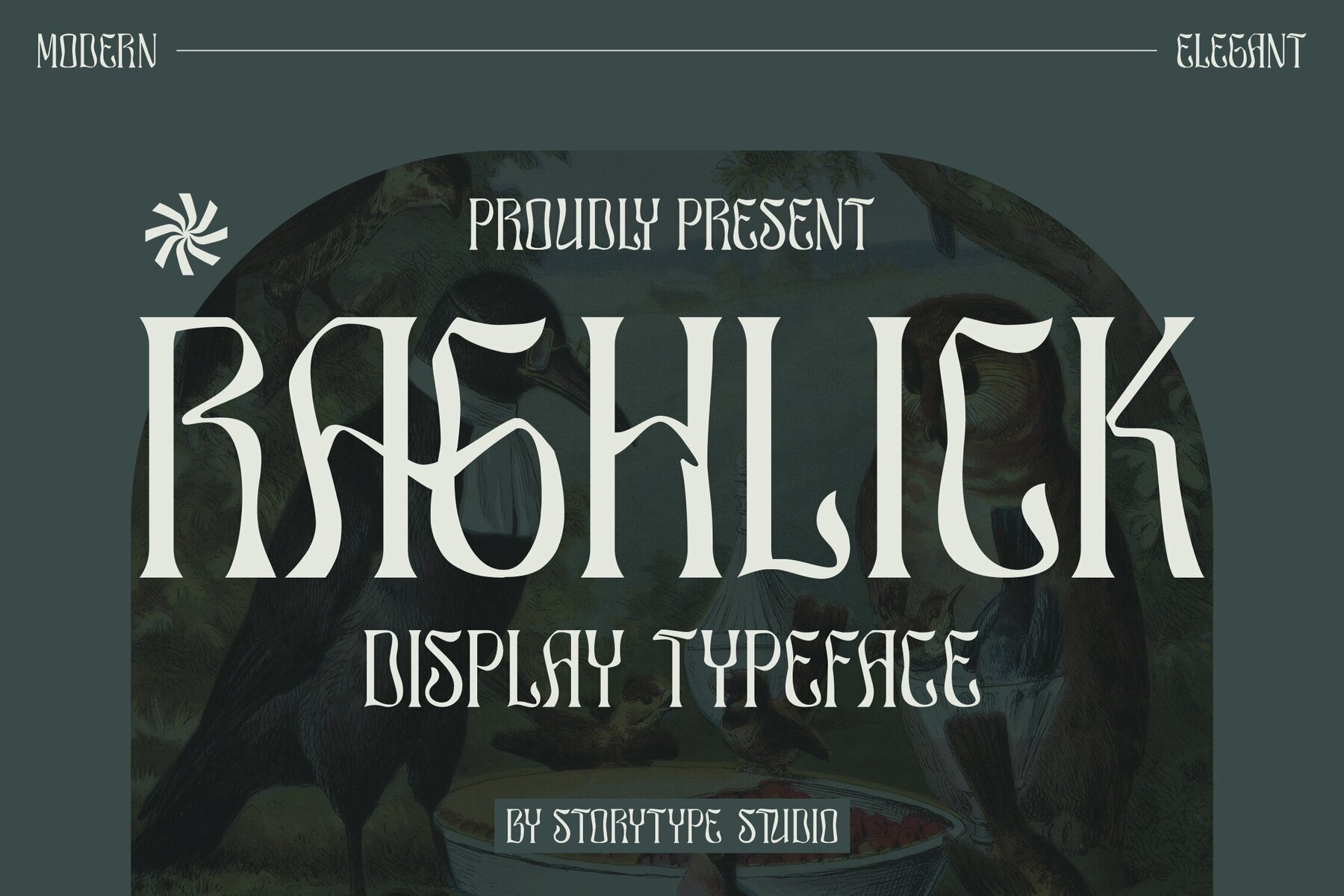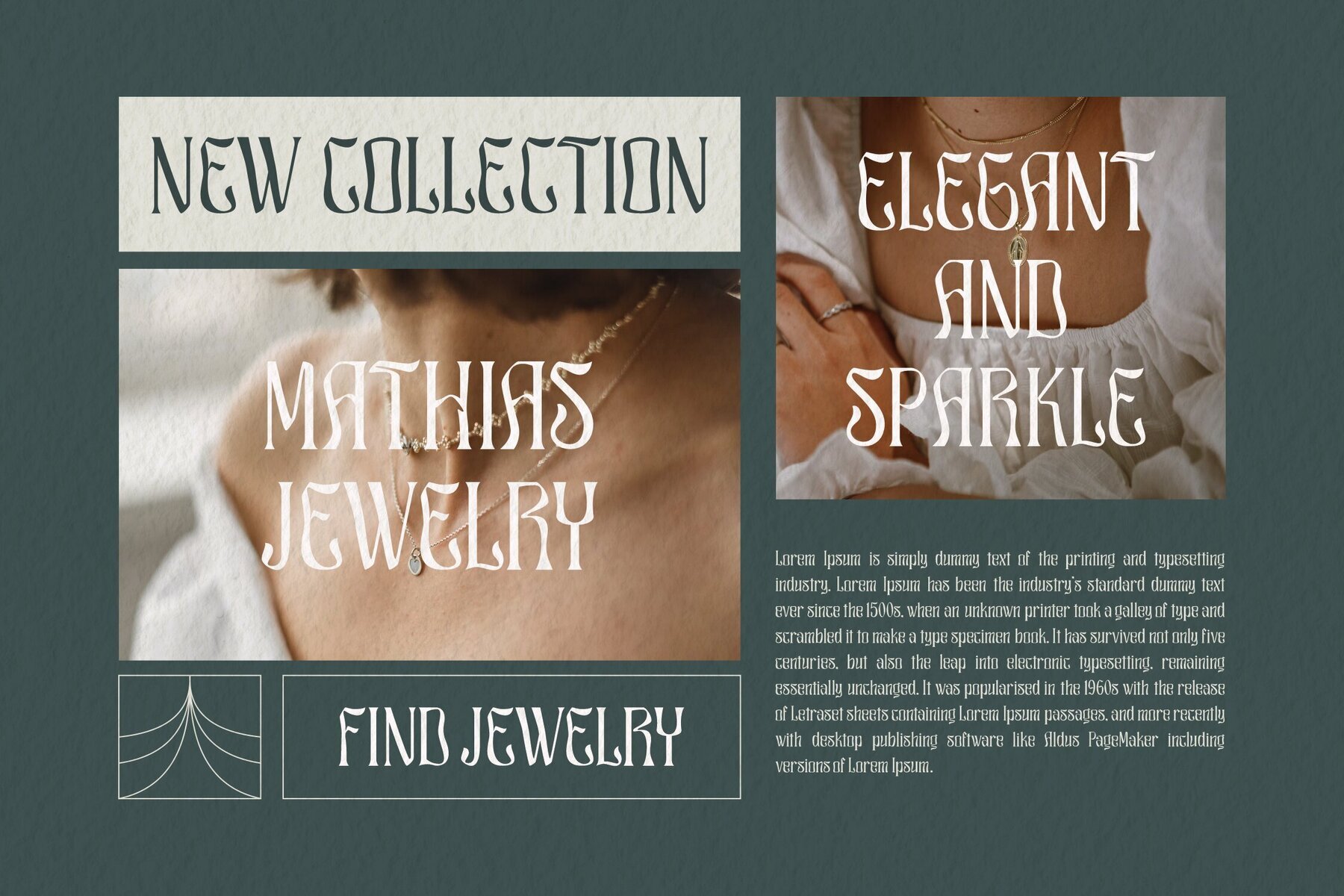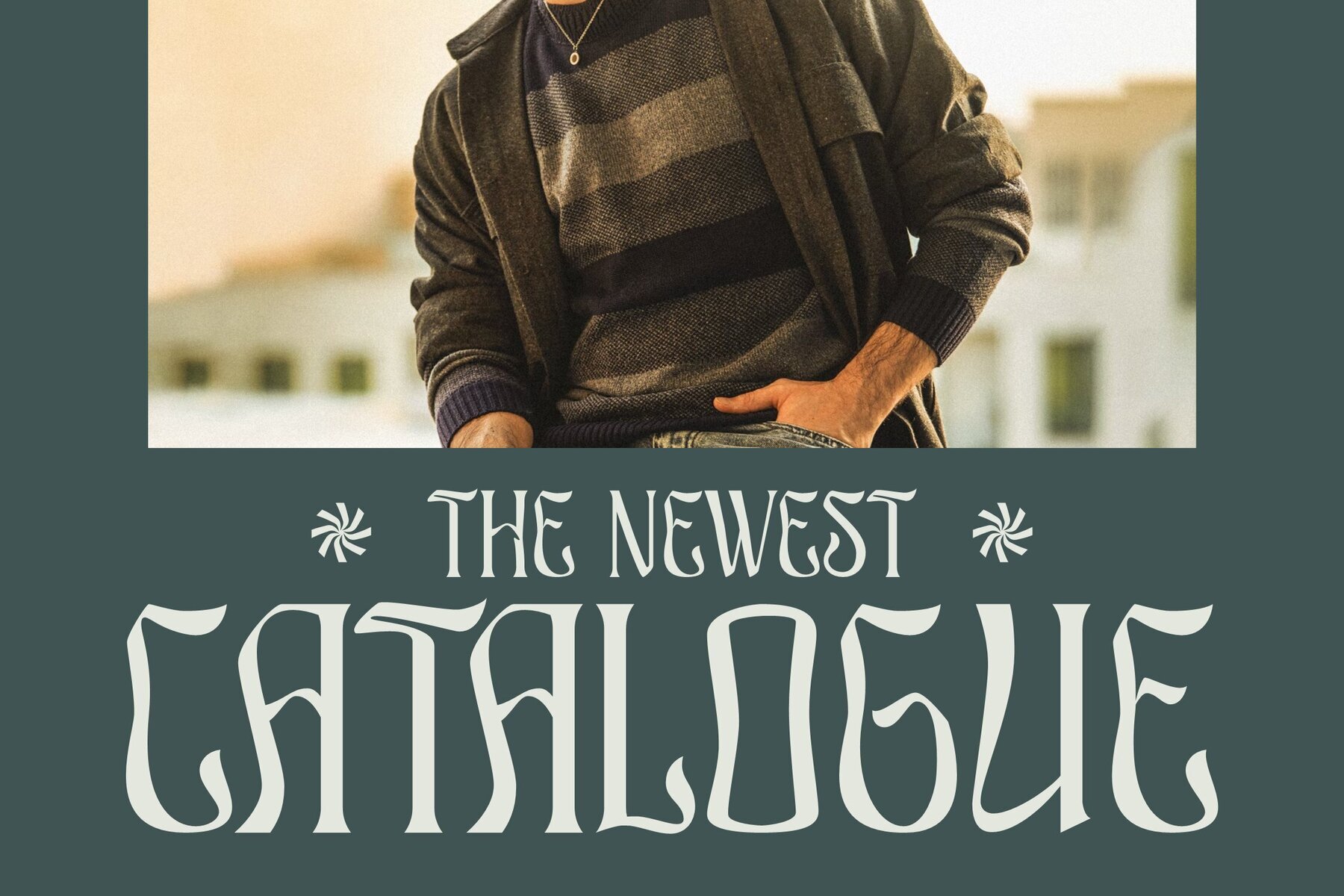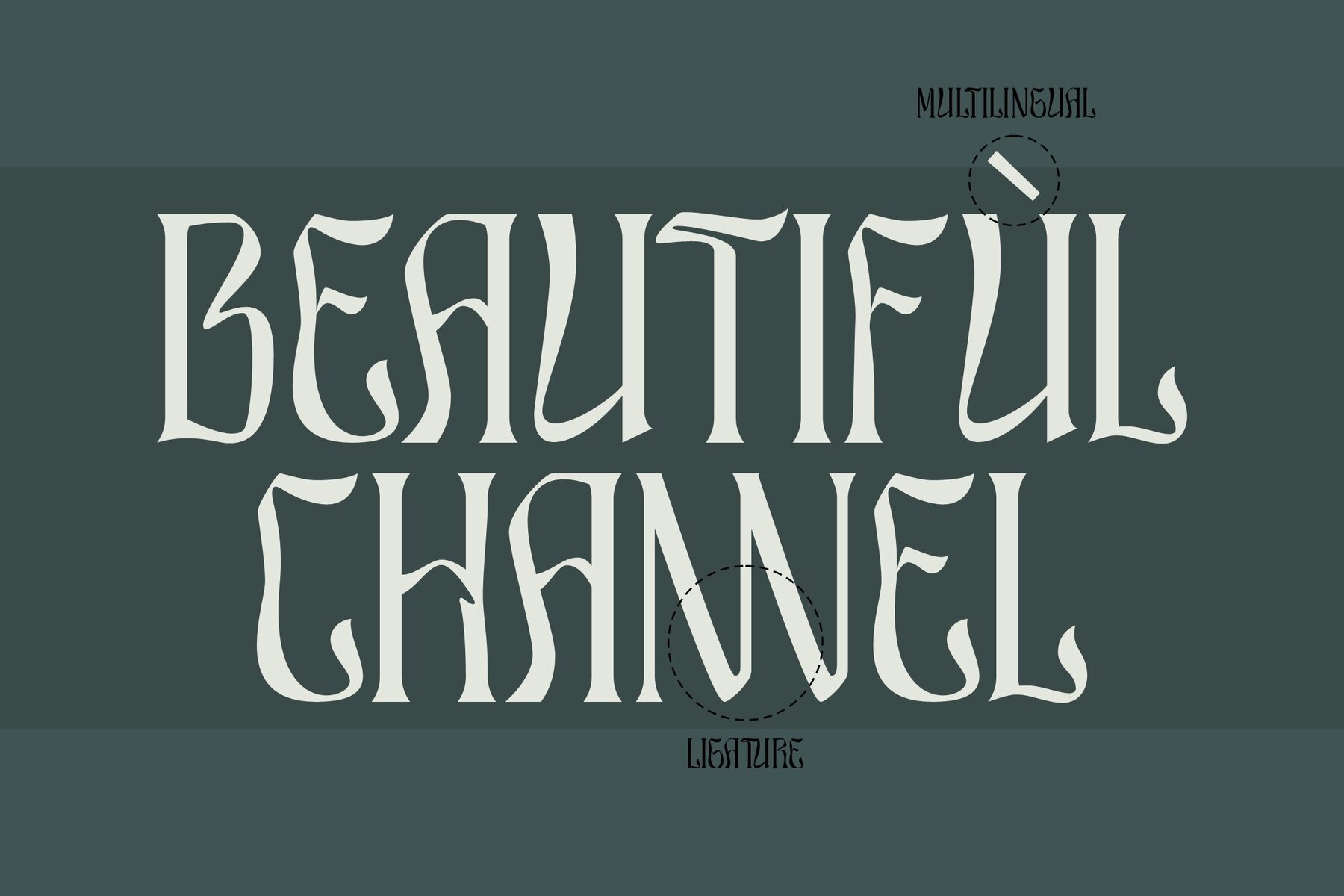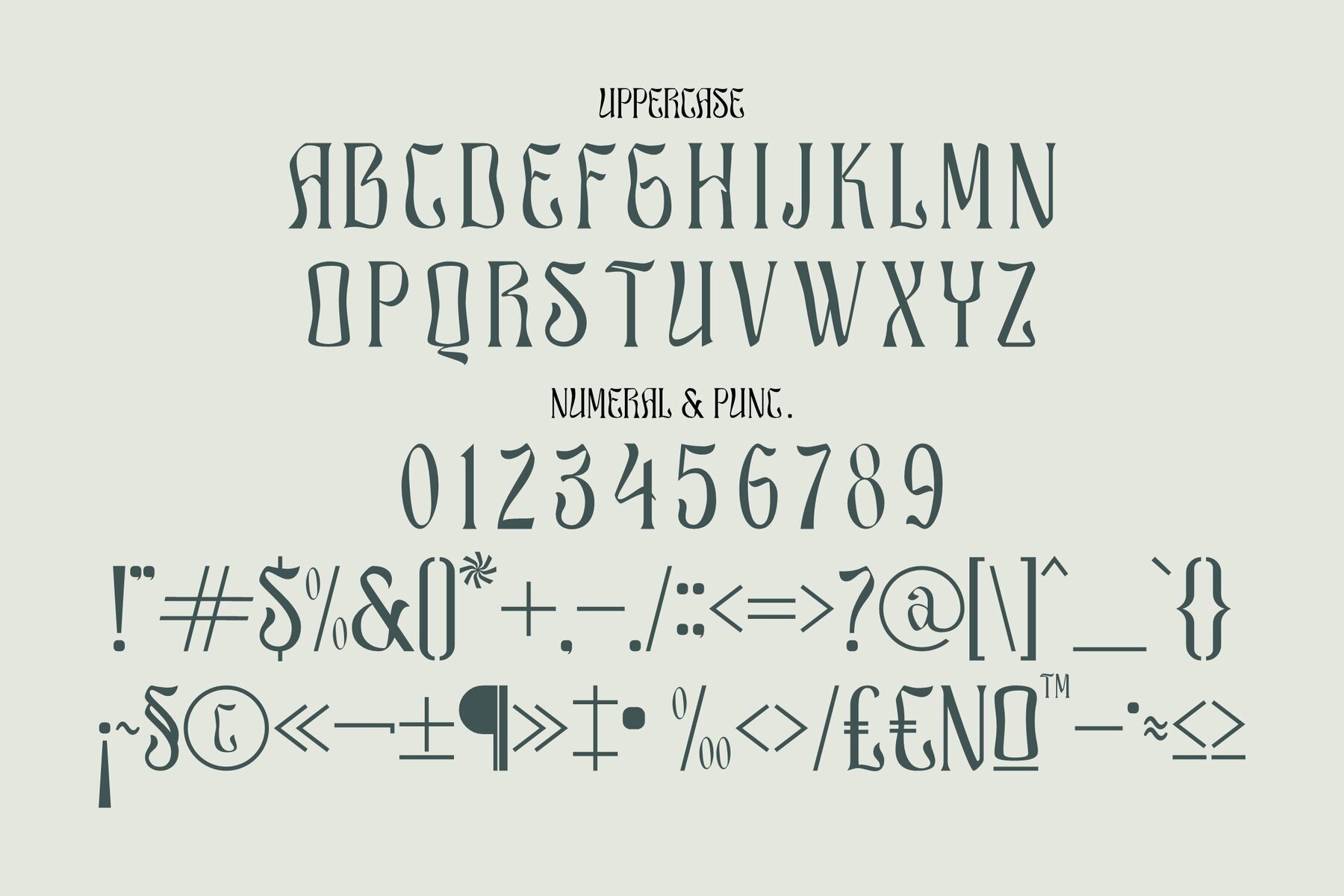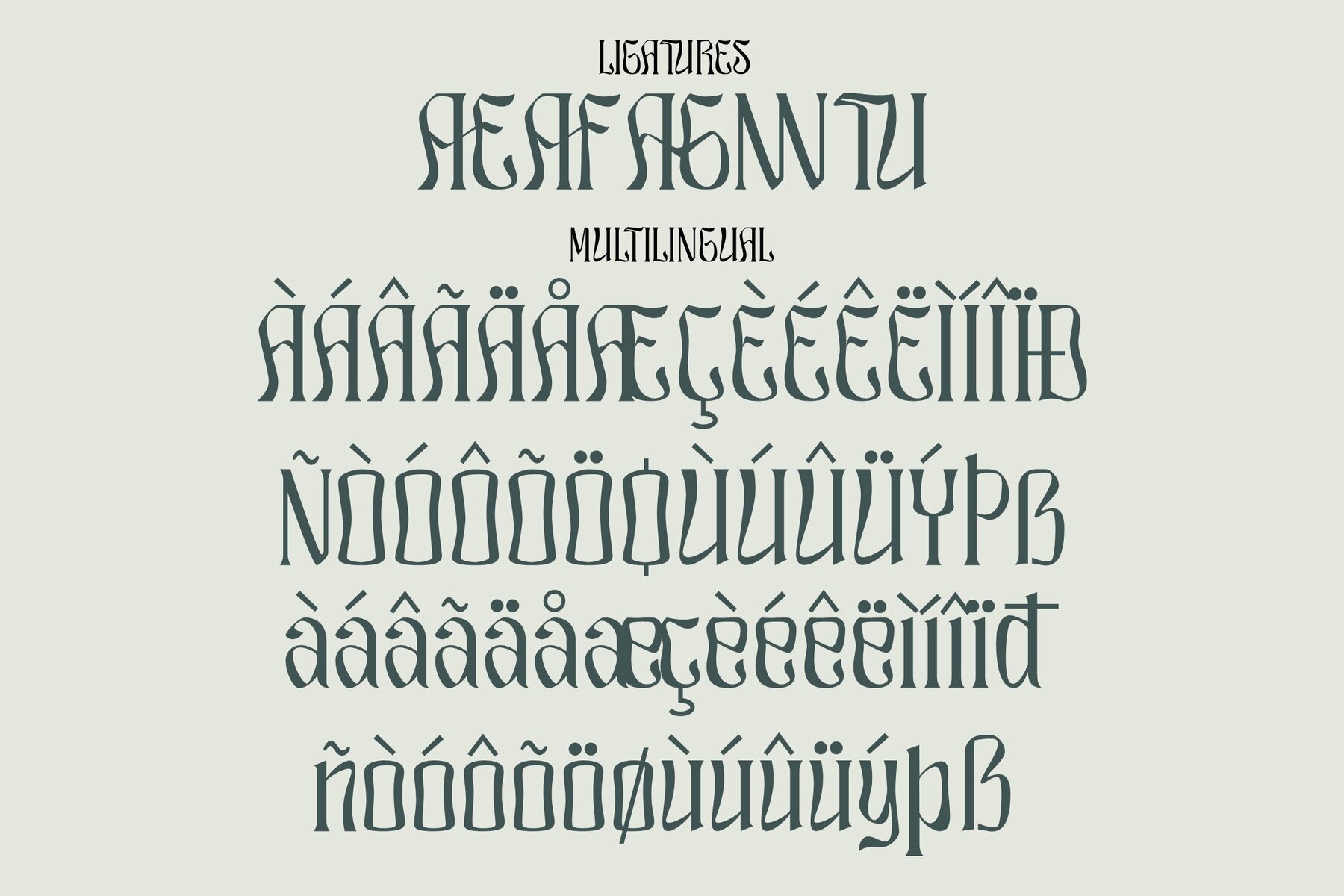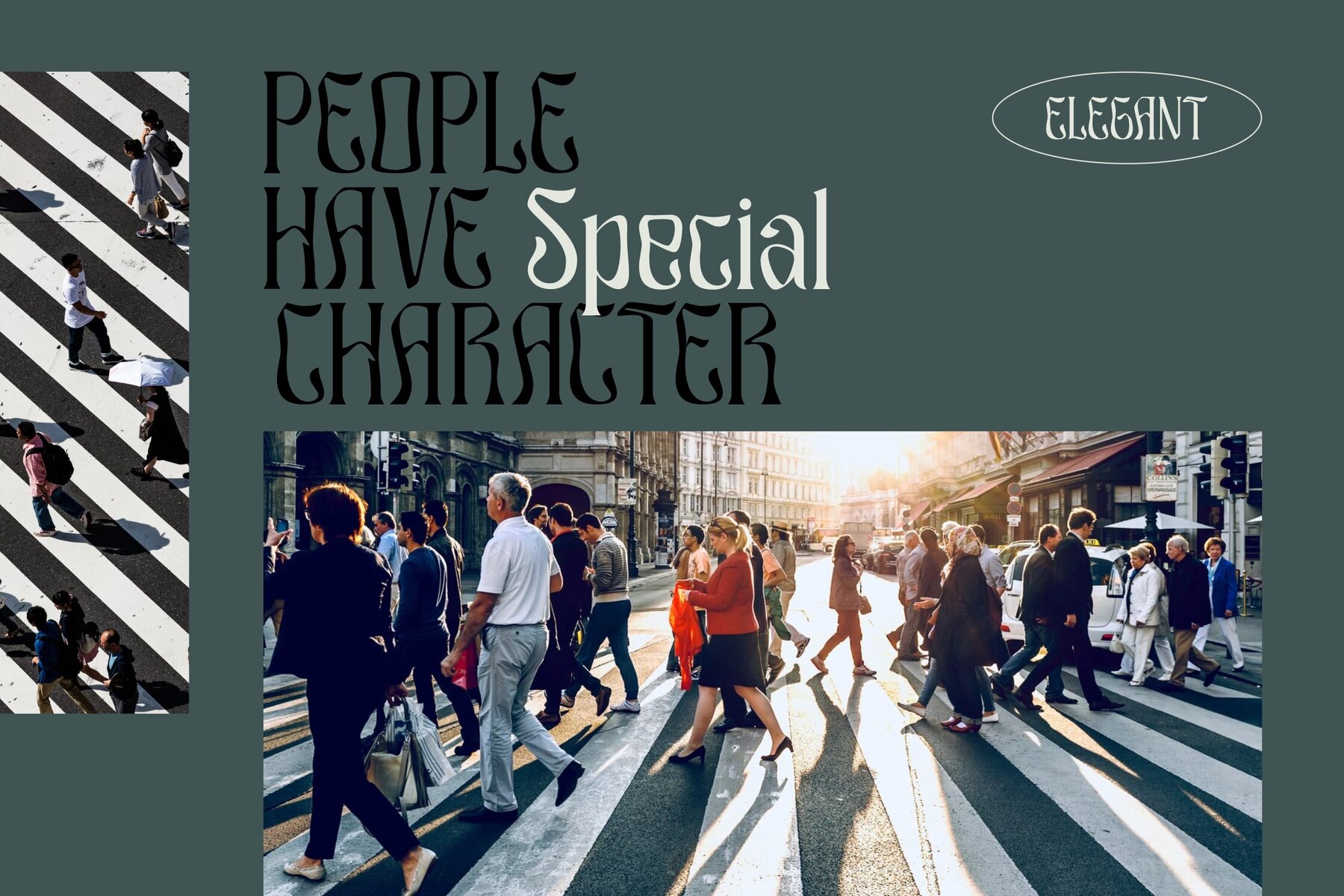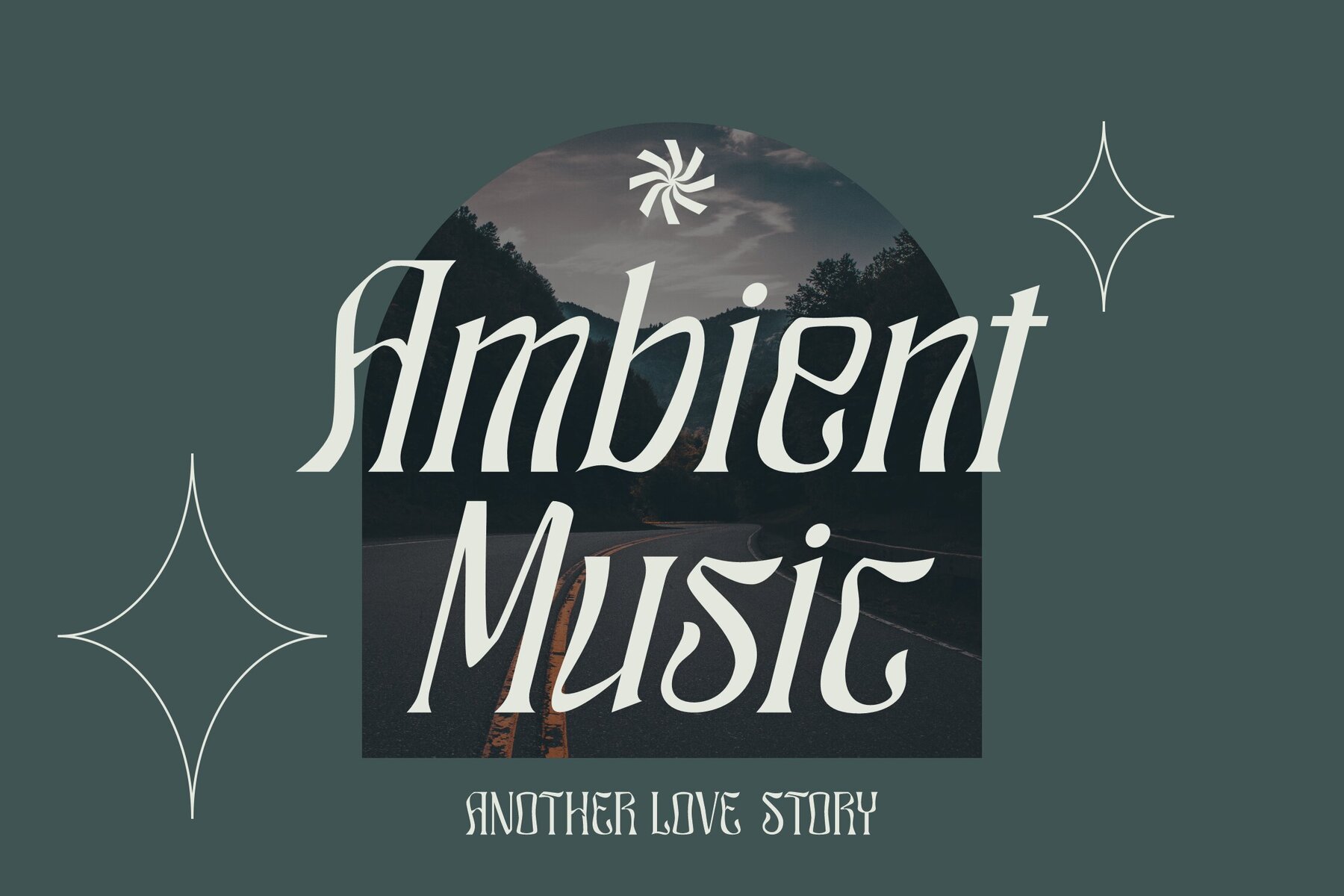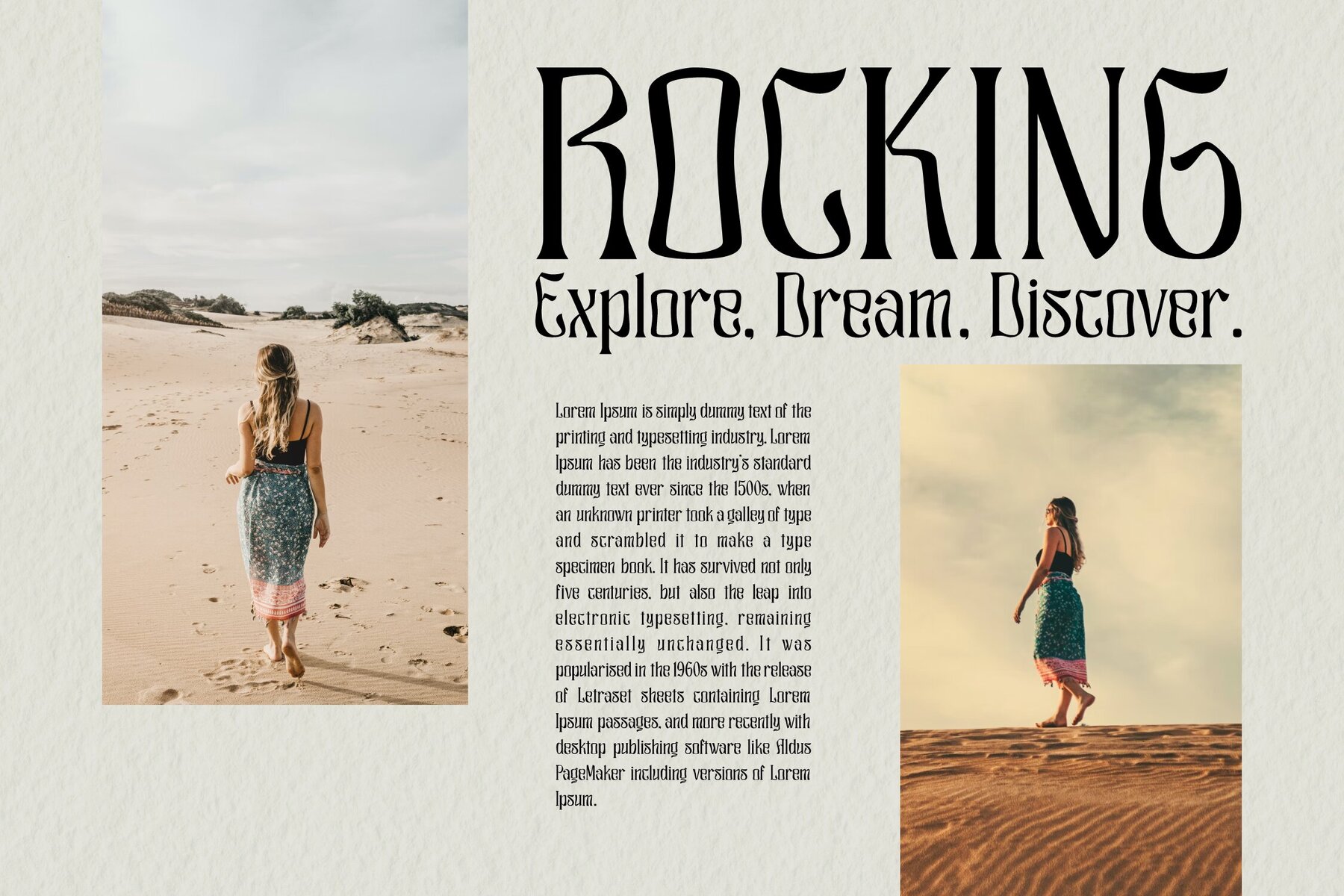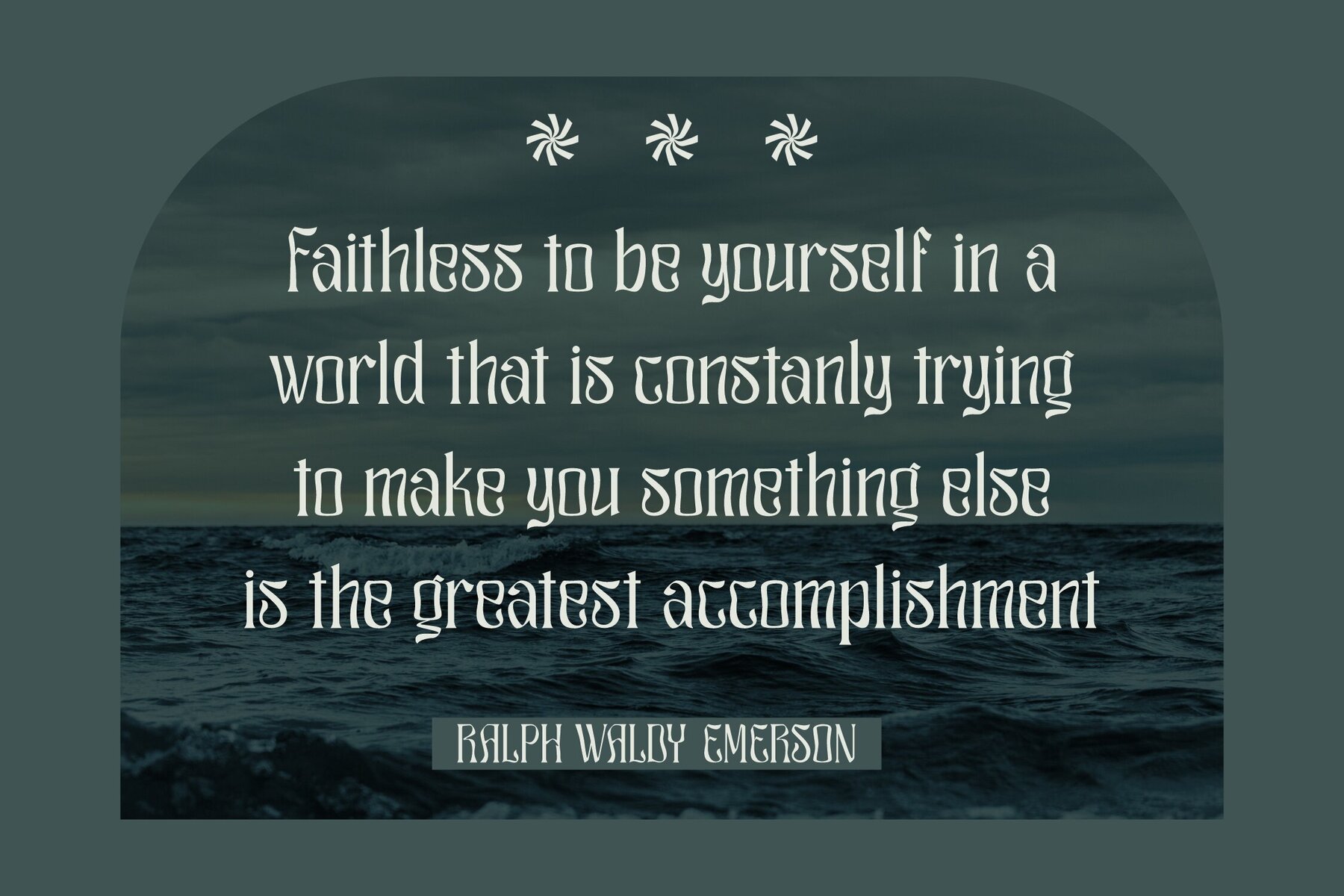
RAGHLICK Font
The RAGHLICK Typeface by Storytype Studio seamlessly blends modern and classic elements to offer a singular style with a refined appearance. Ideal for crafting elegant logos, book or movie titles, and fashion brands, this serif typeface shines in magazine design, apparel, branding, and more. Its distinctive flair adds a touch of luxury to any project.Introducing RAGHLICK Typeface